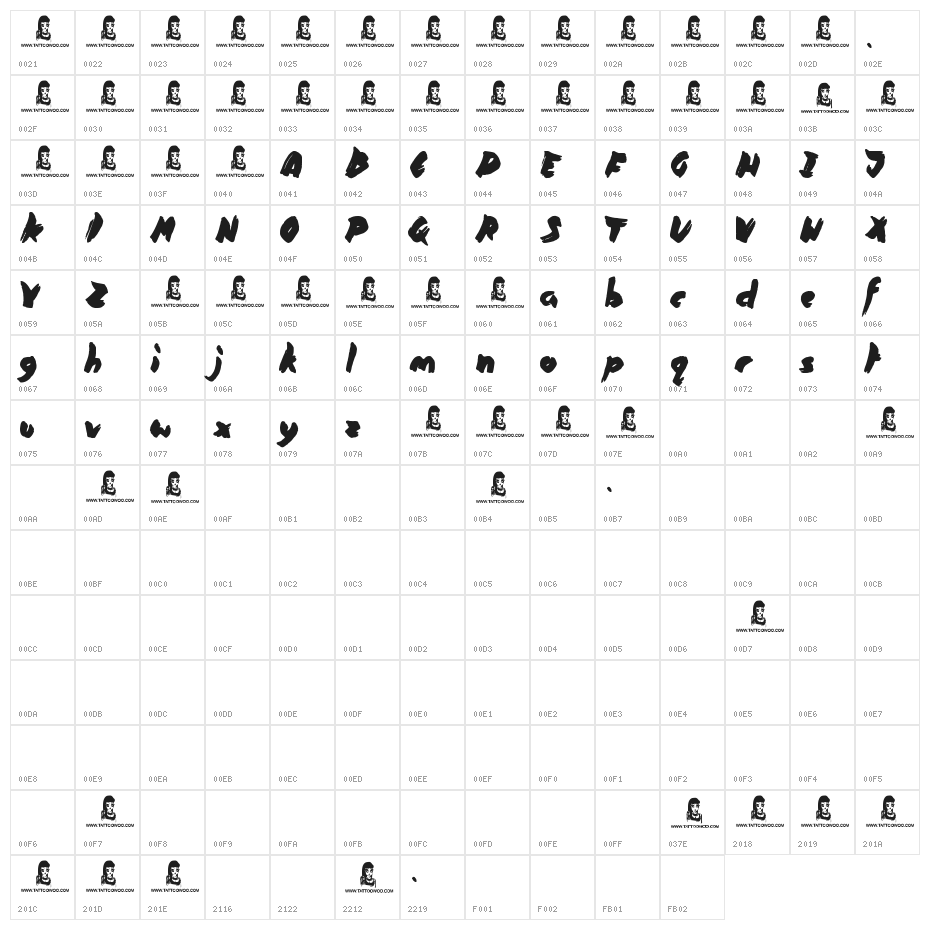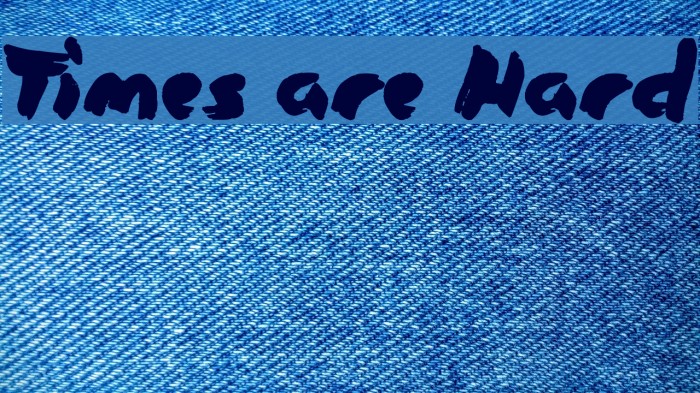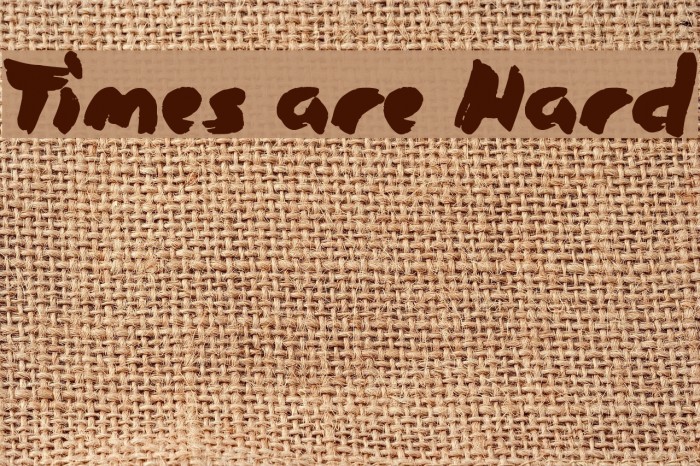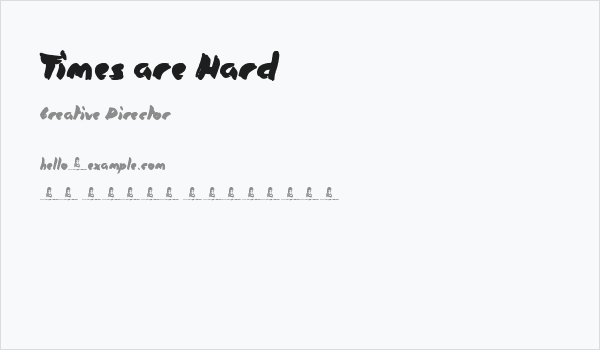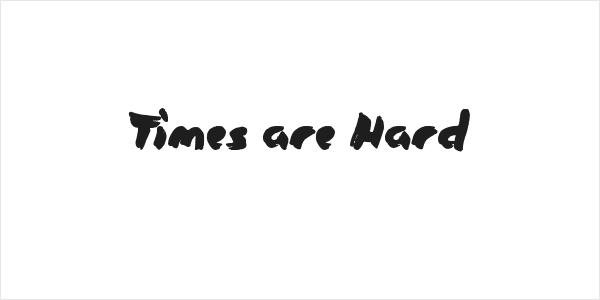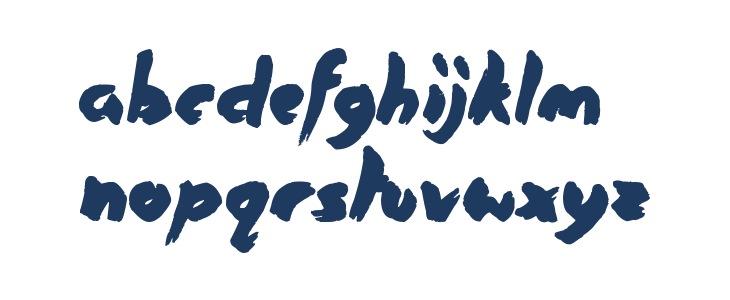
Times are Hard Font
Times are Hard Description
This font features a bold, expressive style with a brush-like texture, giving it a dynamic and energetic appearance. The strokes are thick and irregular, creating a sense of movement and spontaneity. Each character is unique, with varying angles and curves, adding to the font's artistic flair. The uppercase and lowercase letters maintain a consistent style, while the numbers and special characters integrate seamlessly, enhancing the overall cohesiveness. This font's design is reminiscent of hand-painted signage or graffiti, making it stand out with its bold presence.
| Proposed Projects | Ideal for projects that require a bold statement, such as posters, album covers, or branding materials for creative industries. |